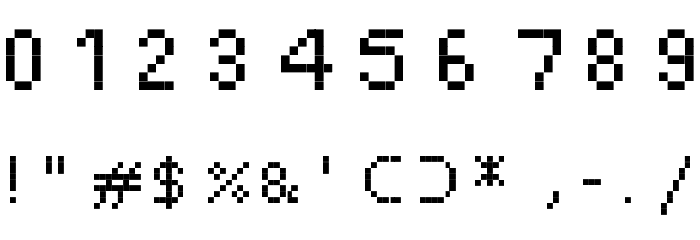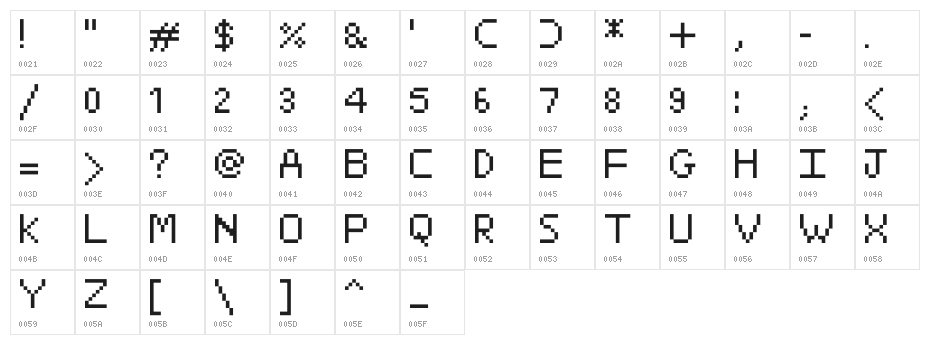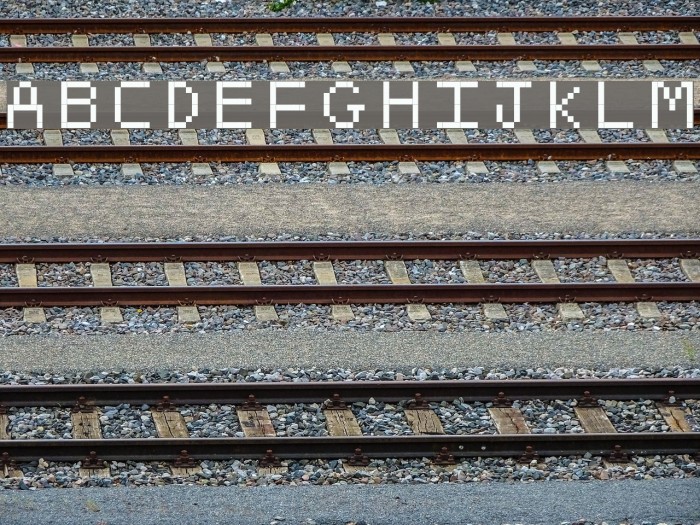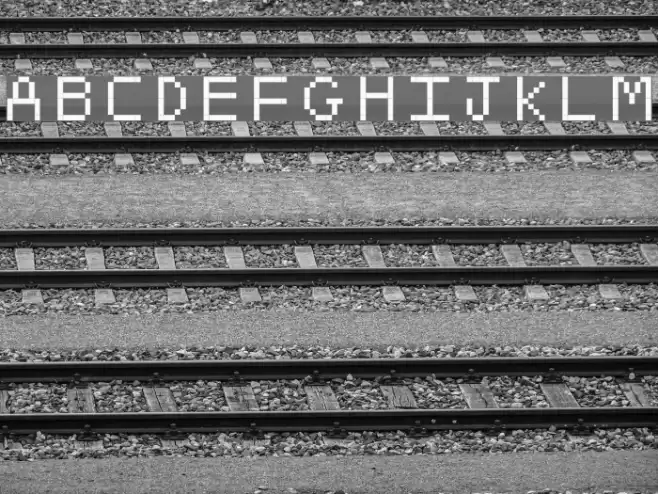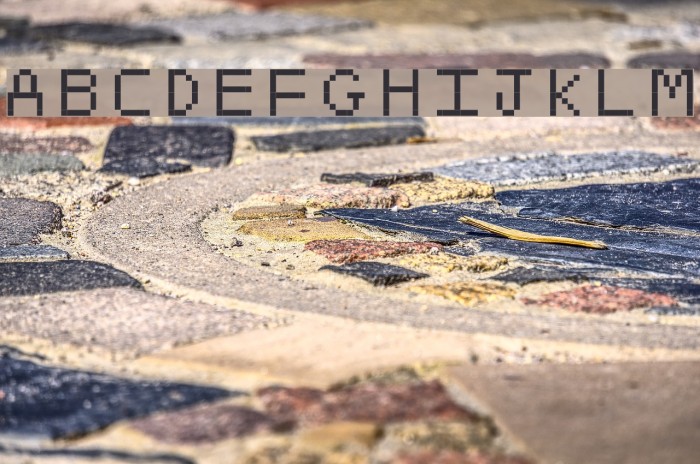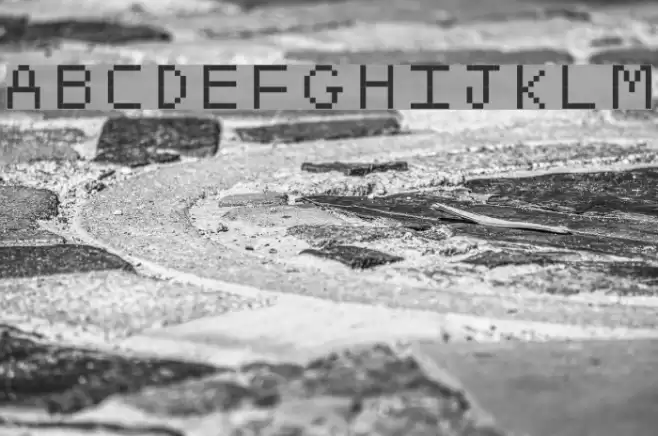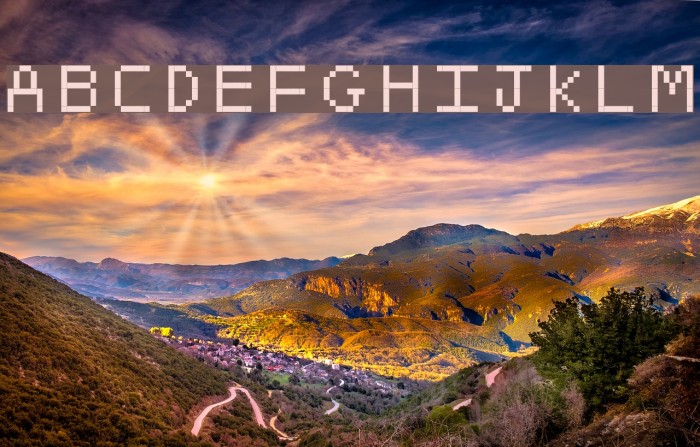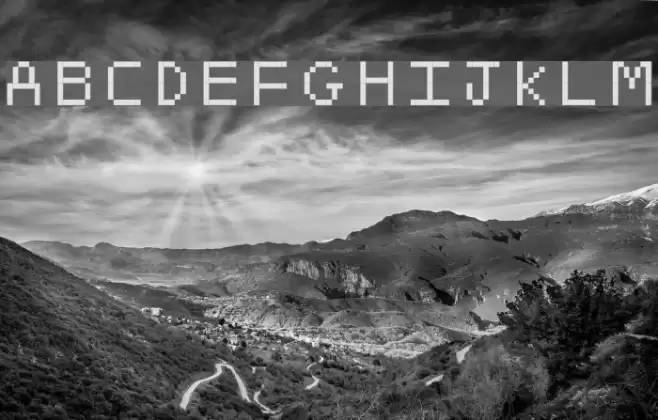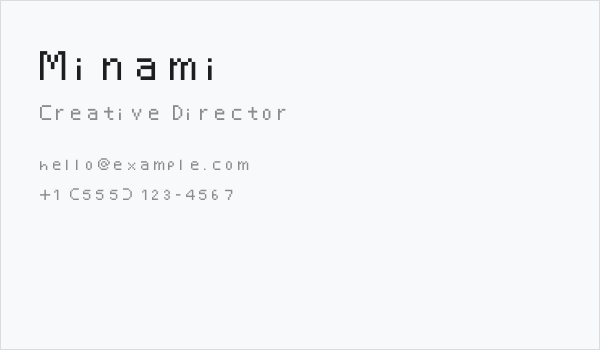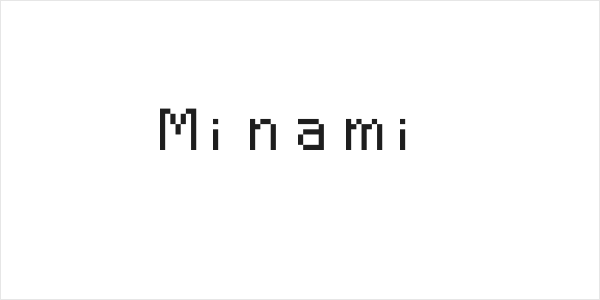
Minami Font
Minami Description
This font features a pixelated, grid-like structure that evokes a retro, digital aesthetic reminiscent of early computer screens and video games. Each character is composed of small, square blocks, giving it a distinctly geometric and modular appearance. The uppercase and lowercase letters maintain a consistent height, contributing to a uniform and cohesive look. The numerals and special characters follow the same pixelated style, ensuring visual harmony across all elements. This font's design is straightforward and functional, making it ideal for projects that aim to capture a vintage digital feel.
| Use Case | Logos, Headlines, Digital Art |
| Proposed Projects | Ideal for retro video game designs, digital art projects, tech-themed posters, and any creative work that seeks to evoke nostalgia for early computer graphics. |